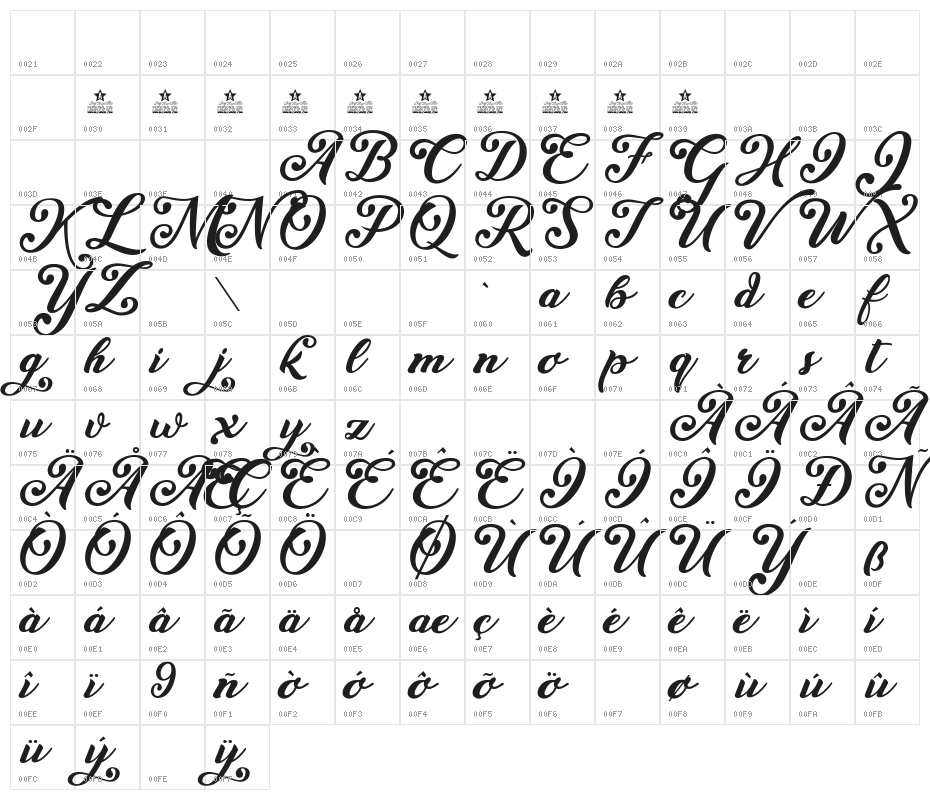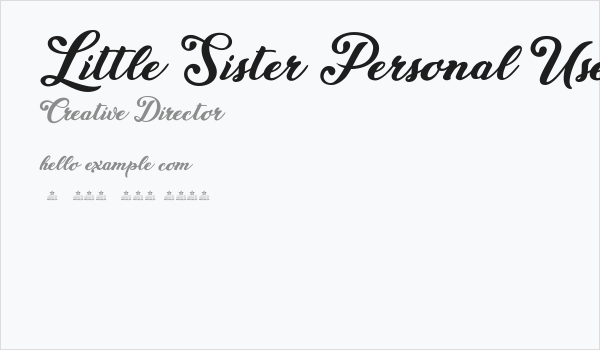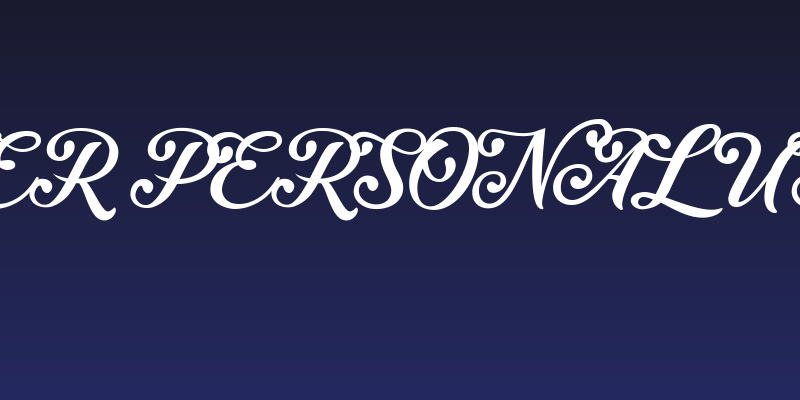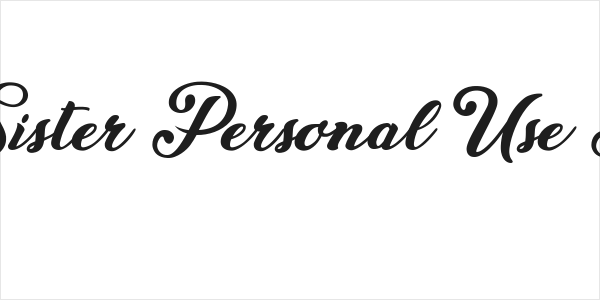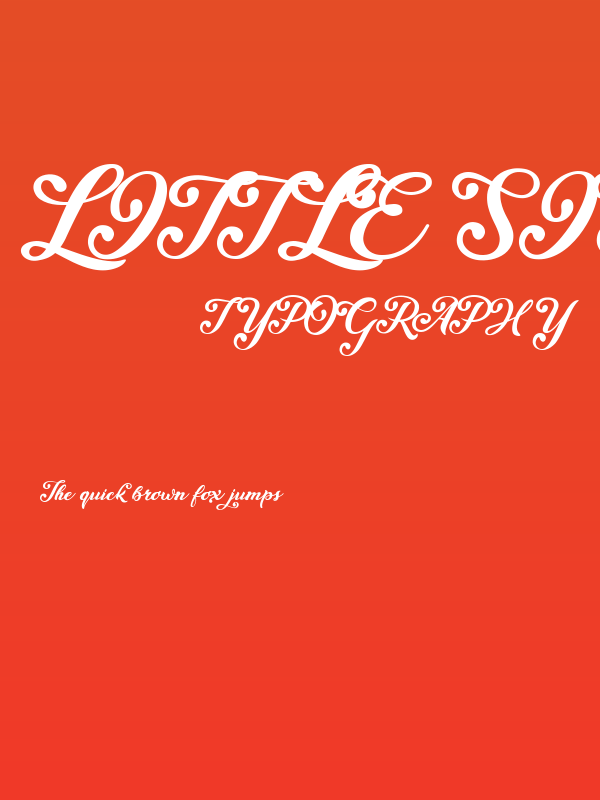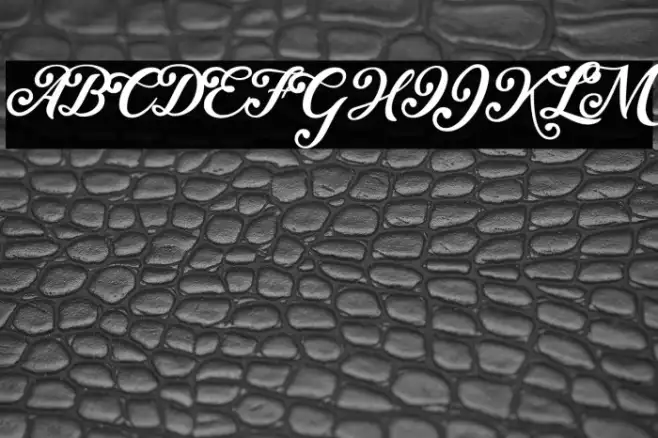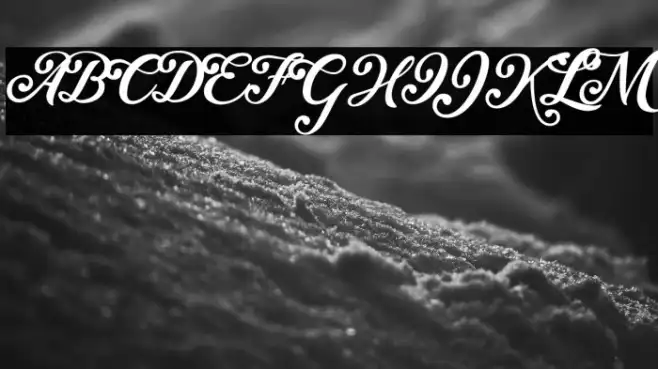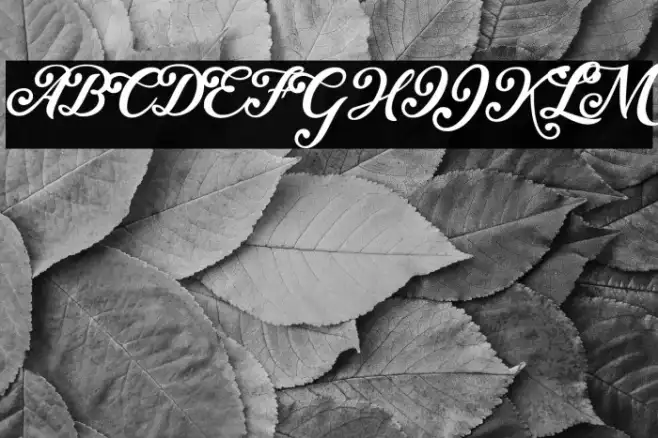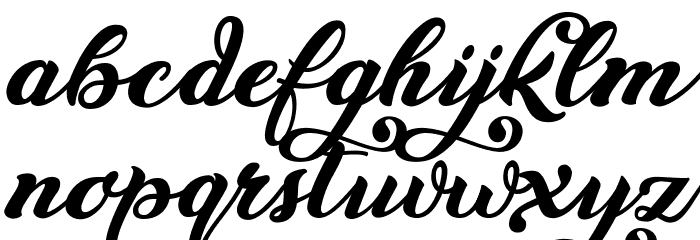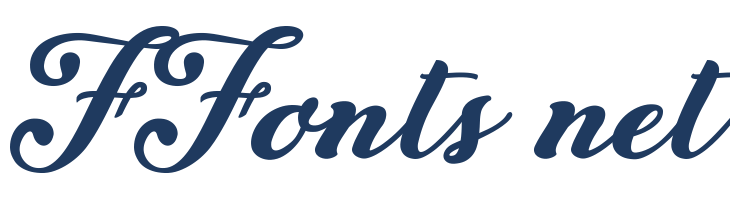
Little Sister Personal Use Regular Font
Little Sister Personal Use Regular Description
This font exudes elegance and sophistication with its flowing script style. The characters are intricately designed with elaborate swirls and flourishes, giving it a decorative and artistic appearance. The uppercase letters are particularly ornate, featuring loops and curls that add a touch of grandeur. The lowercase letters maintain a consistent style, with smooth, flowing lines that enhance readability while retaining an artistic flair. The numbers and special characters are designed to match the overall aesthetic, ensuring a cohesive look across all text. This font is perfect for projects that require a touch of elegance and creativity.
| Proposed Projects | Ideal for wedding invitations, greeting cards, branding, and decorative signage. |